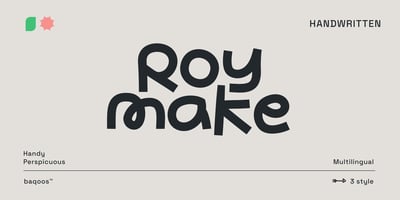
Roy Make
Roy Make font
Roy Make Font Family was designed by Andrew Seah and published by Baqoos. Roy Make contains 3 styles and family package options. Roy Make is a handy perspicuous handwritten typeface apt for headline, editorial, branding, packaging, printed materials and typographic applications. 200+ glyphs including punctuation and numerical.